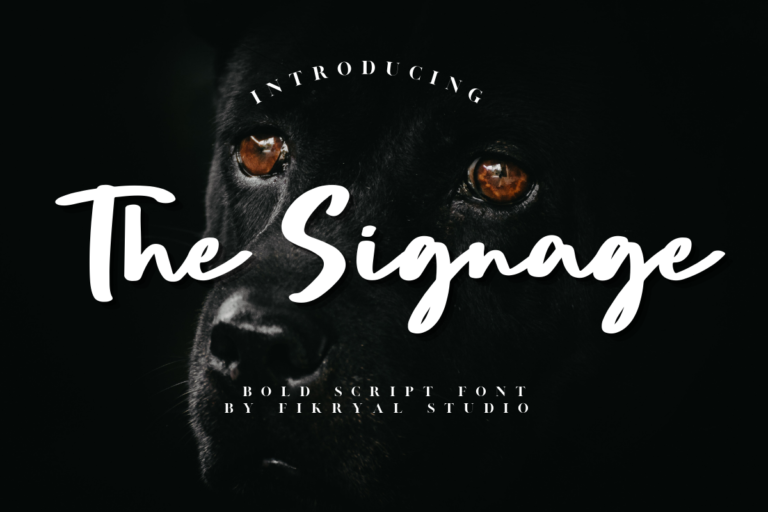
- The Signage – Bold Script Font
The Signage
The Signage is a bold script font perfect for crafting, branding, invitation, stationery, wedding designs, social media posts, advertisements, product packaging, product designs, label, photography, watermark, special events, or anything.